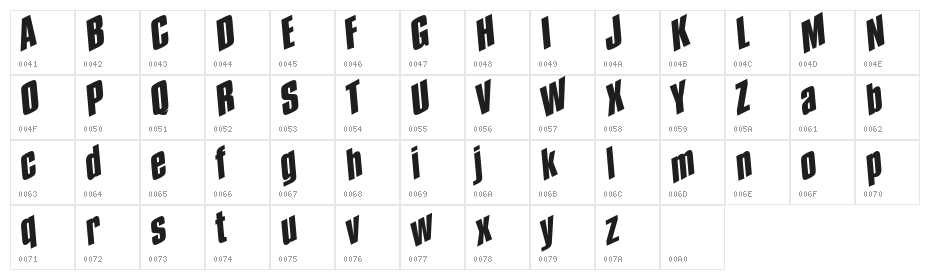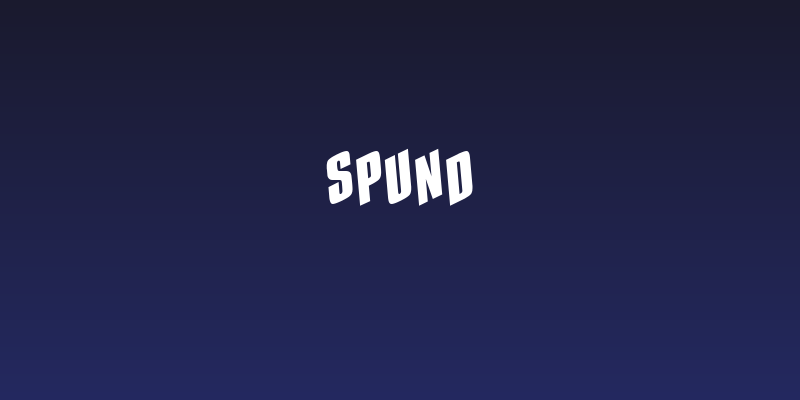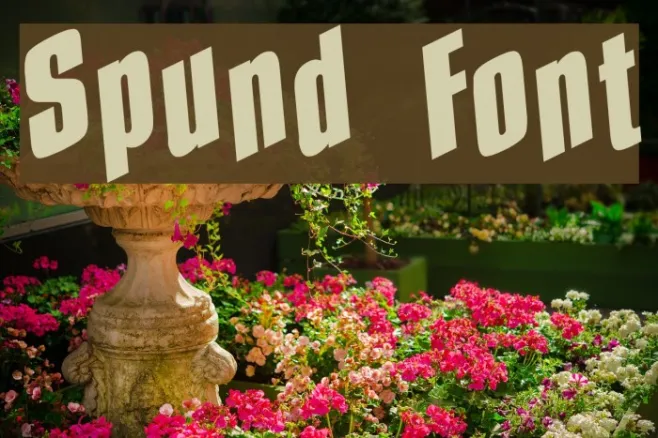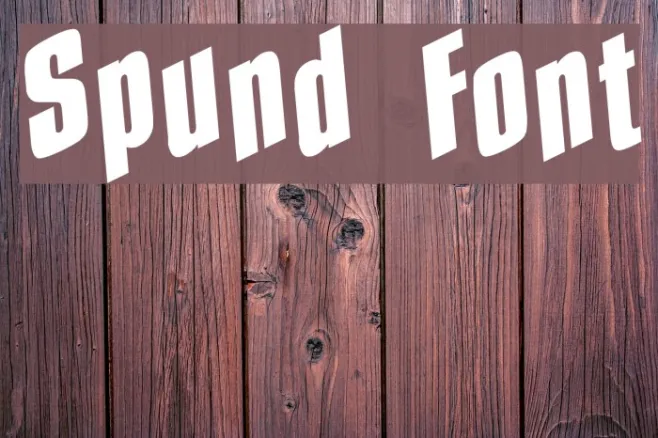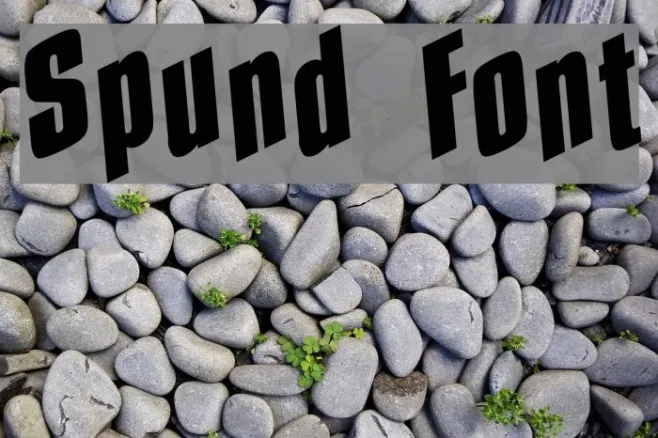
Spund Font
Spund Description
This font features bold, slanted characters with a strong, dynamic presence. The uppercase and lowercase letters are designed with a consistent angle, giving a sense of movement and urgency. The strokes are thick and uniform, providing a solid and impactful appearance. The absence of serifs and the geometric structure of the letters contribute to a modern and assertive style. This font is particularly suitable for making bold statements and grabbing attention.
| Proposed Projects | Ideal for posters, headlines, branding, and any design that requires a strong visual impact. |